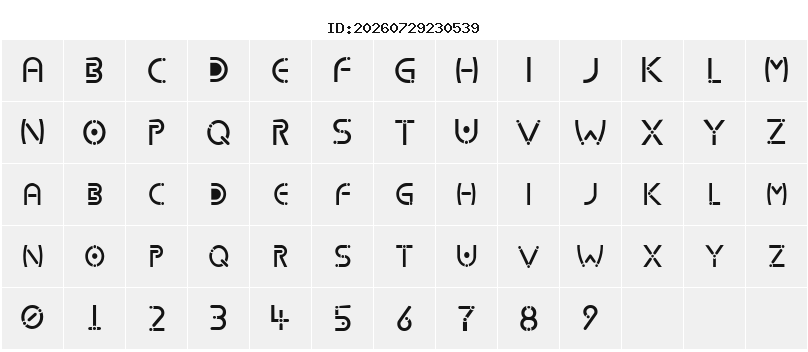
Kharnorric.ttf is a modern, elegant sans-serif font designed for ultimate readability and visual harmony. Perfect for branding, headlines, web design, and print materials.